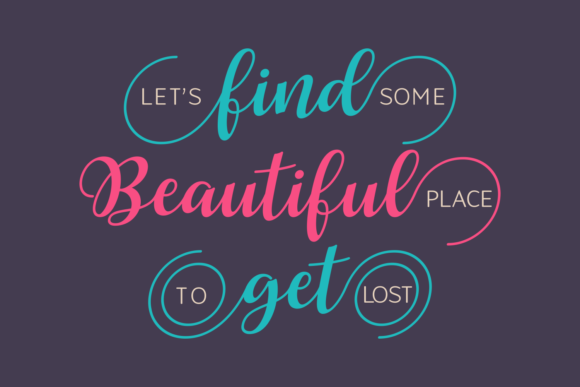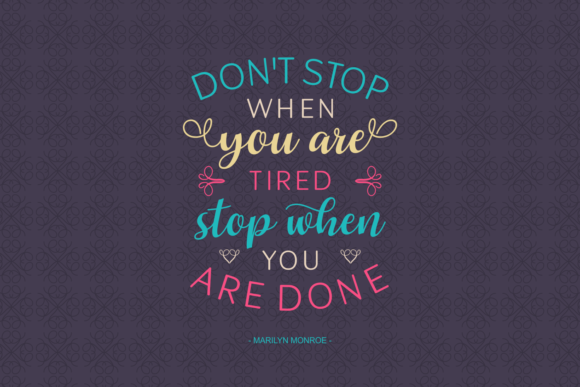
Gella & Robaga Duo Font: The Ultimate Design Combination
The Gella & Robaga duo font is an amazing font combination that has taken the design world by storm. This incredible pair of fonts can be combined perfectly, giving designers the opportunity to create multiple unique designs in an instant. In this article, we will explore the features and benefits of the Gella & Robaga duo font, and how it can elevate your design game.
What is the Gella & Robaga Duo Font?
The Gella & Robaga duo font is a carefully crafted pair of fonts that are designed to work seamlessly together. Gella is a modern, elegant script font, while Robaga is a bold, sans-serif font. The combination of these two fonts creates a stunning visual contrast that can add depth and interest to any design.
Key Features of the Gella & Robaga Duo Font
- Perfectly paired fonts: The Gella & Robaga duo font is specifically designed to be used together, ensuring a harmonious and balanced look.
- High-quality design: Both fonts are crafted with attention to detail, featuring clean lines, elegant curves, and precise letter spacing.
- Versatile: The Gella & Robaga duo font can be used for a wide range of design projects, from logos and branding to posters, flyers, and social media graphics.
- Easy to read: The fonts are optimized for readability, making them perfect for body text, headings, and titles.
Benefits of Using the Gella & Robaga Duo Font
So, why should you choose the Gella & Robaga duo font for your next design project? Here are just a few benefits:
- Save time: With the Gella & Robaga duo font, you can create stunning designs in a fraction of the time it would take with other font combinations.
- Stand out from the crowd: The unique combination of Gella and Robaga fonts will give your designs a distinctive look that sets them apart from others.
- Increase creativity: The versatility of the Gella & Robaga duo font will inspire you to experiment with new design ideas and push the boundaries of your creativity.
- Professional results: The high-quality design of the fonts ensures that your designs will look professional and polished, even if you’re a beginner.
How to Use the Gella & Robaga Duo Font
Using the Gella & Robaga duo font is easy! Here are a few tips to get you started:
- Pair Gella with Robaga: Use Gella as your primary font and Robaga as a secondary font, or vice versa.
- Experiment with font sizes: Play around with different font sizes to create visual interest and hierarchy in your design.
- Add texture and color: Add texture and color to your design to make it more engaging and dynamic.
Design Ideas Using the Gella & Robaga Duo Font
The Gella & Robaga duo font is incredibly versatile, and can be used for a wide range of design projects. Here are a few ideas to get you started:
- Logos and branding: Create a stunning logo and brand identity with the Gella & Robaga duo font.
- Posters and flyers: Design eye-catching posters and flyers that grab attention and communicate your message.
- Social media graphics: Create engaging social media graphics that stand out in crowded feeds.
- Wedding and event design: Use the Gella & Robaga duo font to create beautiful wedding and event designs, such as invitations, programs, and signage.
The Gella & Robaga duo font is an incredible design tool that can elevate your design game and help you create stunning designs in no time. With its perfectly paired fonts, high-quality design, and versatility, this font duo is a must-have for any designer or crafty enthusiast. So why wait? Get your hands on the Gella & Robaga duo font today and start creating!